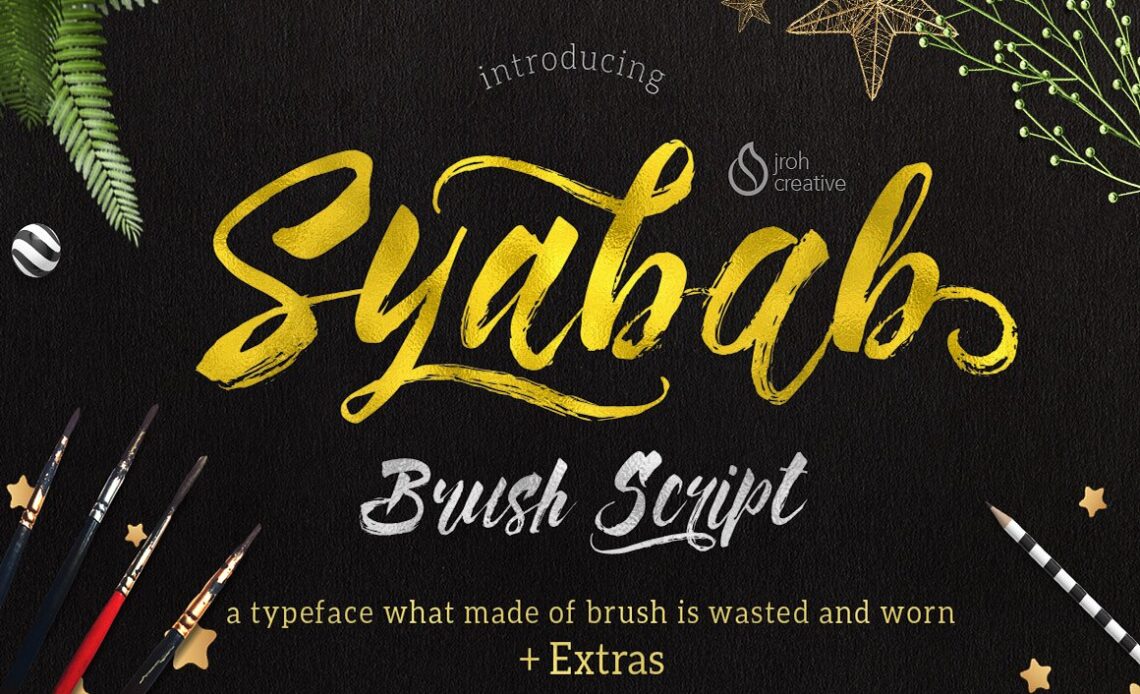
Let Syabab's captivating script dance across your designs, evoking a timeless allure that will leave an unforgettable impression. This exquisite brush font, lovingly crafted by JROH Creative, whispers tales of bygone eras with its enchanting strokes.
Syabab's raw, worn-out textures ignite a sense of authenticity and nostalgia, making it the perfect choice for capturing the essence of the past in your creations. Unleash your imagination and explore the boundless possibilities of this captivating script, from captivating logos to alluring invitations and enchanting social media posts.
With Syabab's bold and free-flowing style, you'll command attention and make a statement that resonates with your audience. Its versatility knows no bounds, adapting seamlessly to diverse projects that demand a touch of timeless elegance. Whether you're designing vintage-themed posters, branding materials that evoke a sense of history, or simply seeking a font that exudes an air of intrigue, Syabab is your muse.
Indulge in the exquisite artistry of Syabab, a script font that will ignite your creativity and transport your designs to a realm of timeless beauty and enduring charm. Embrace its captivating strokes and watch as your projects bloom with an allure that transcends time.